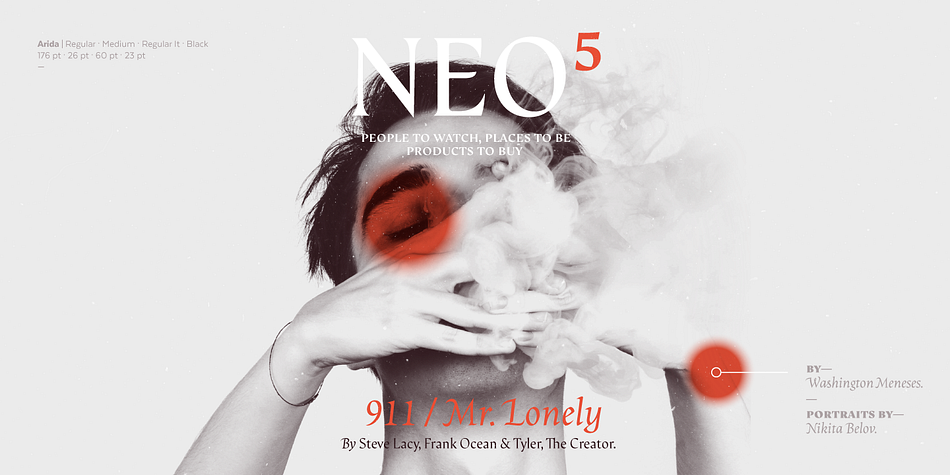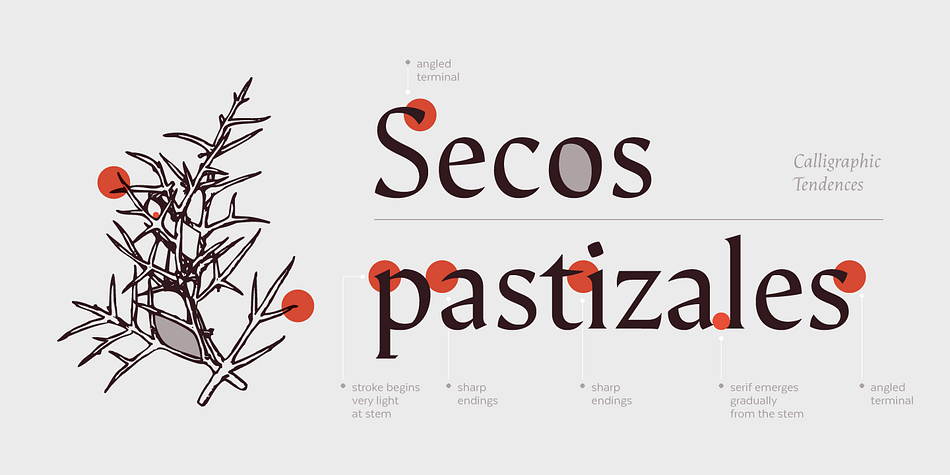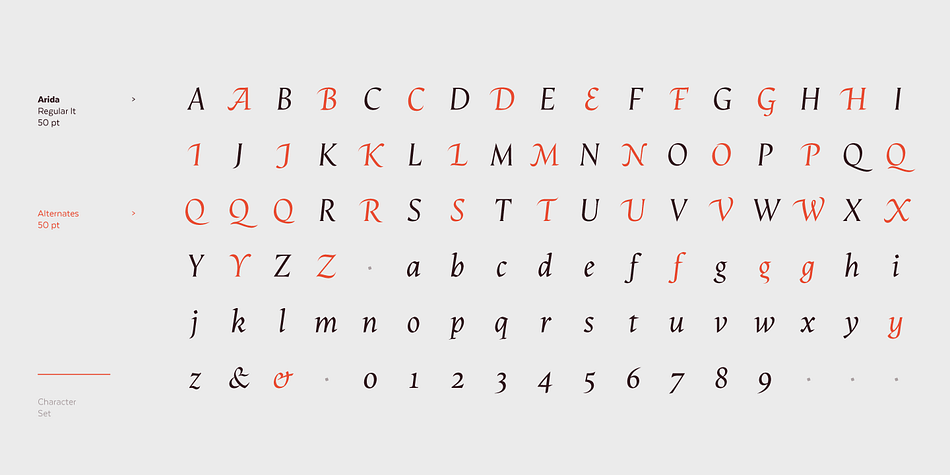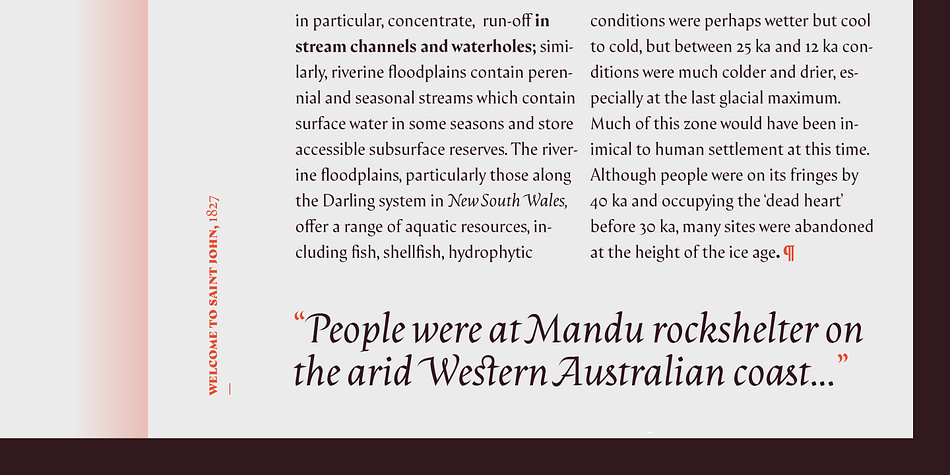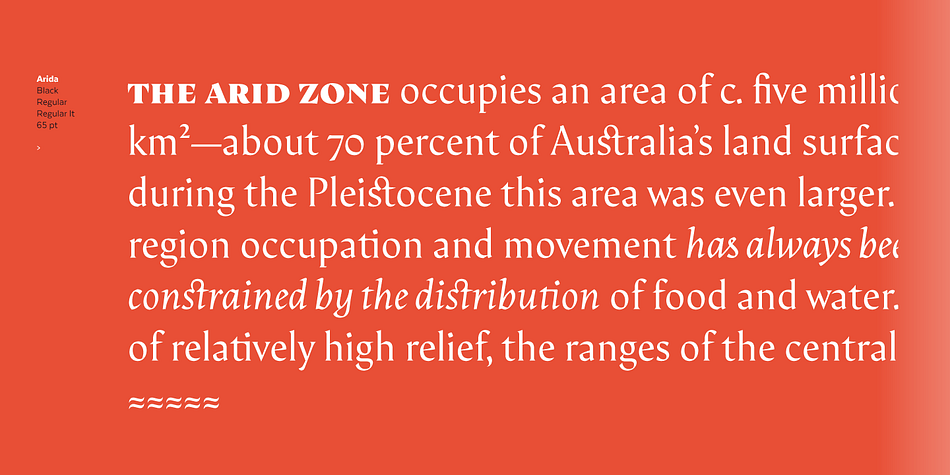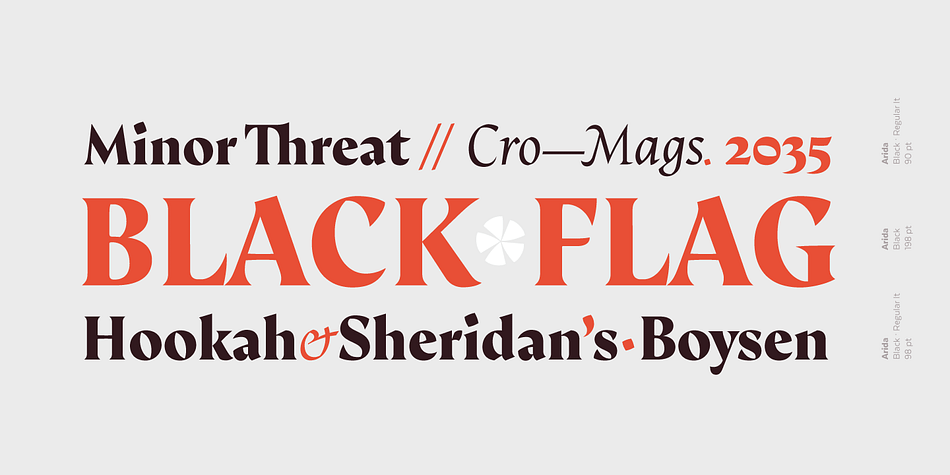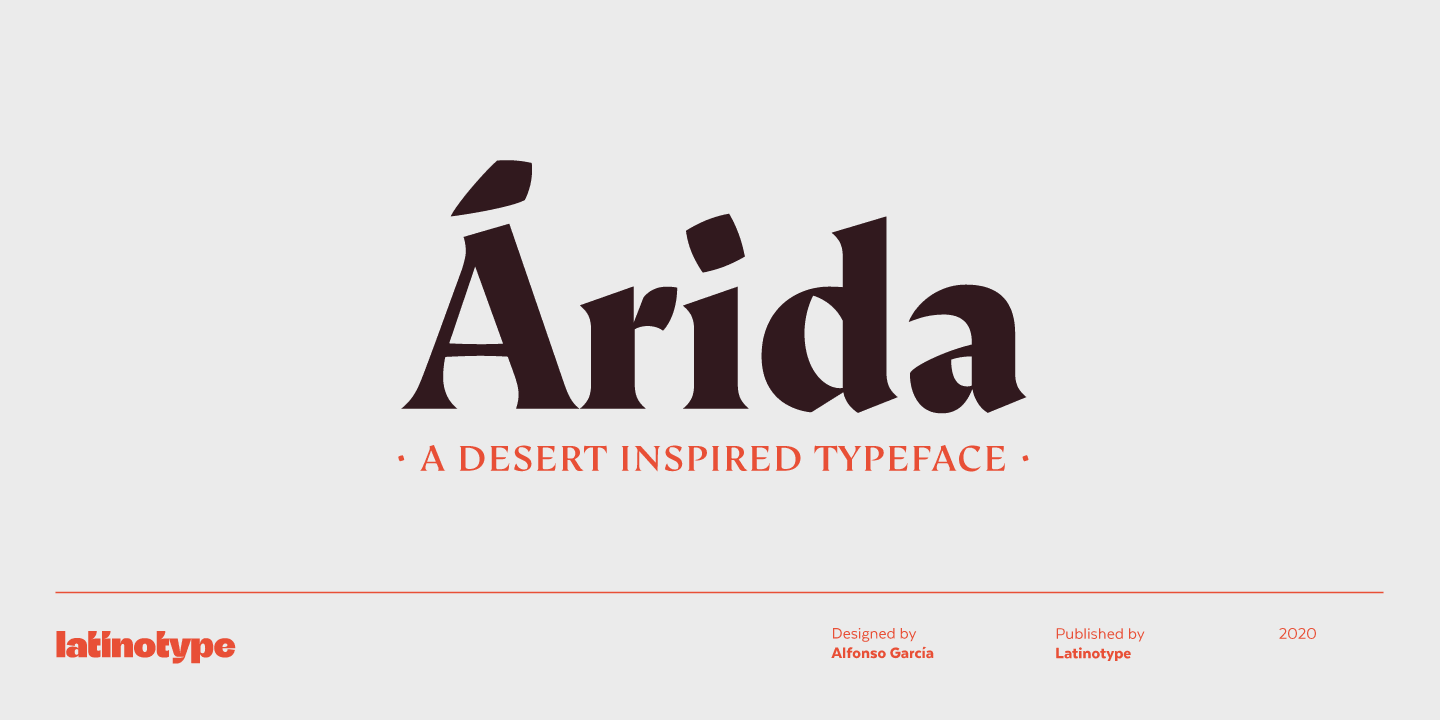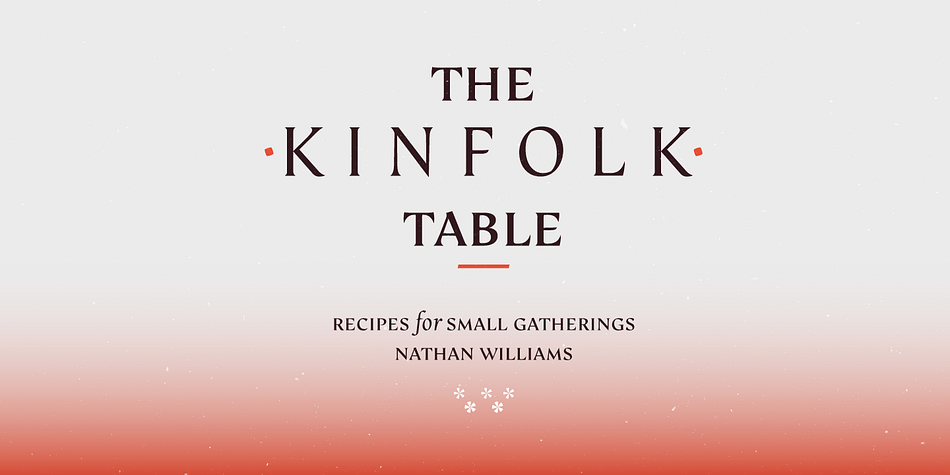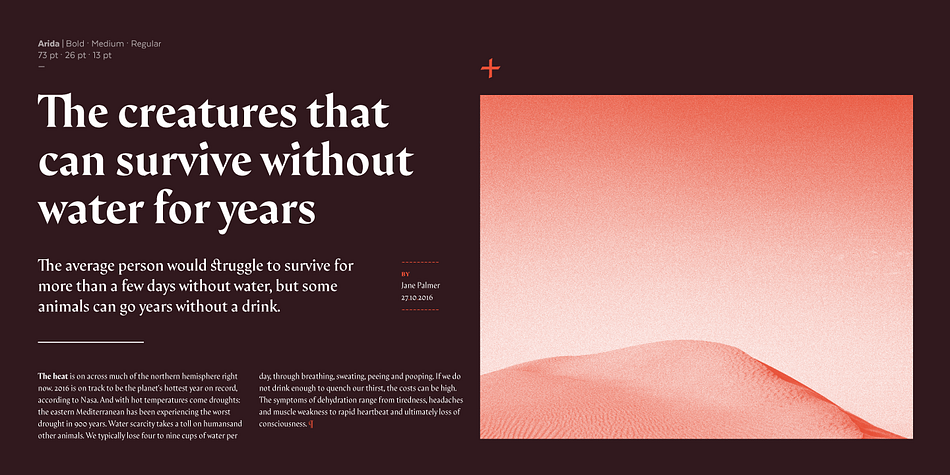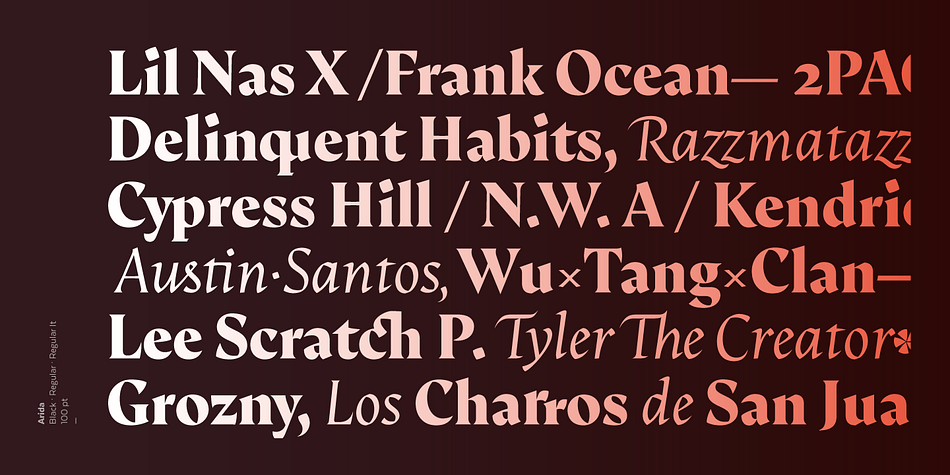
Designed by Alfonso García, Árida is a serif font family. This typeface has five styles and was published by Latinotype.
Árida pays homage to the Argentinian city of San Juan, located in the semi-desert Cuyo region, where cacti are abundant; a characteristic feature of arid habitats.
Árida, inspired by the vegetation of the place, looks sharp and aggressive at large sizes but it also feels friendly at a smaller scale—portraying the dichotomy between humans and nature.
Árida comes in 5 weights, ranging from Regular (with a matching italic) to Black. The Regular variant contains 773 glyphs and its Italic counterpart is composed of 939 glyphs. The font also includes small caps, different styles of figures, ligatures, and stylistic and contextual alternates, among other OpenType features.